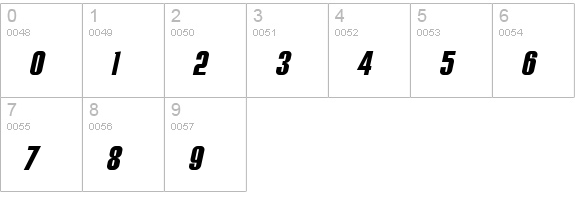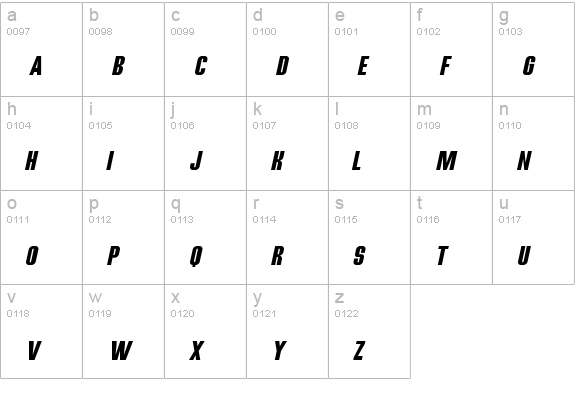
Hot Rod Gang BV Font Details
Hot Rod Gang BV is a bold and dynamic display font that exudes a retro, vintage vibe reminiscent of classic hot rod culture. Its strong, thick lines and sharp edges give it a rebellious and edgy feel, perfect for making a statement in any design project. This font is ideal for creating eye-catching headlines, posters, logos, and other graphic designs that need a touch of attitude and nostalgia. Its unique style adds a sense of energy and excitement, making it stand out from the crowd. Best of all, Hot Rod Gang BV is completely free to download at FontsMarket.com, allowing you to unleash your creativity without any cost barriers. Don't miss out on this fantastic font that will bring a touch of retro cool to your designs!